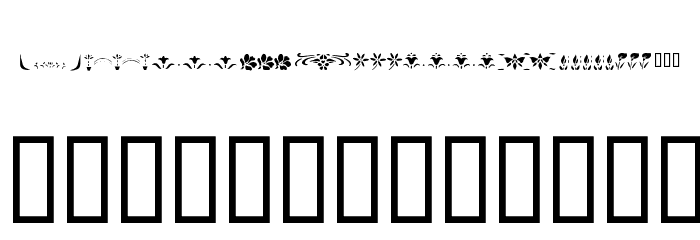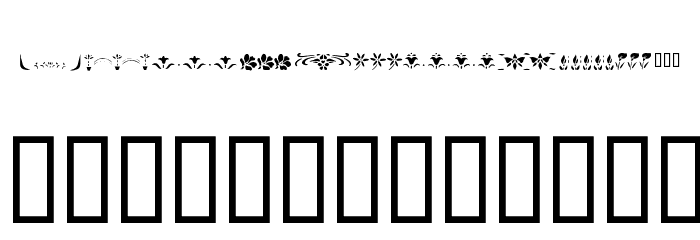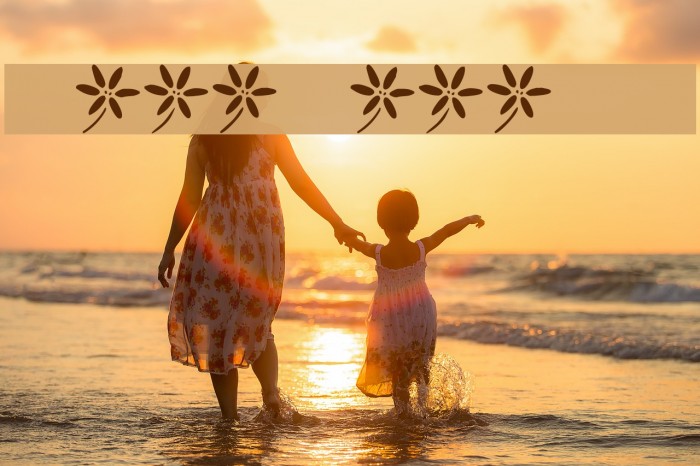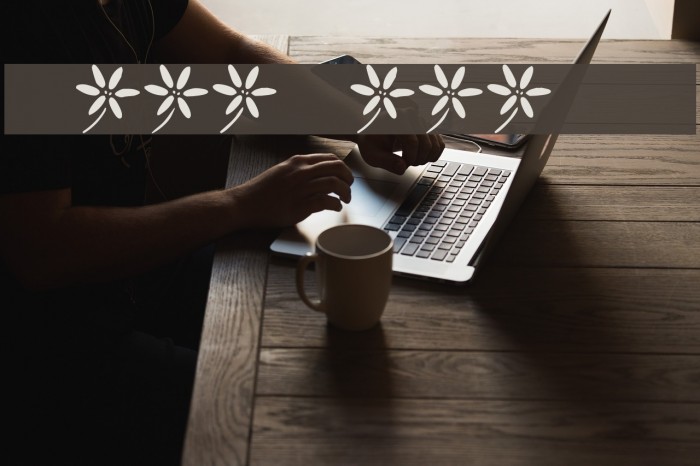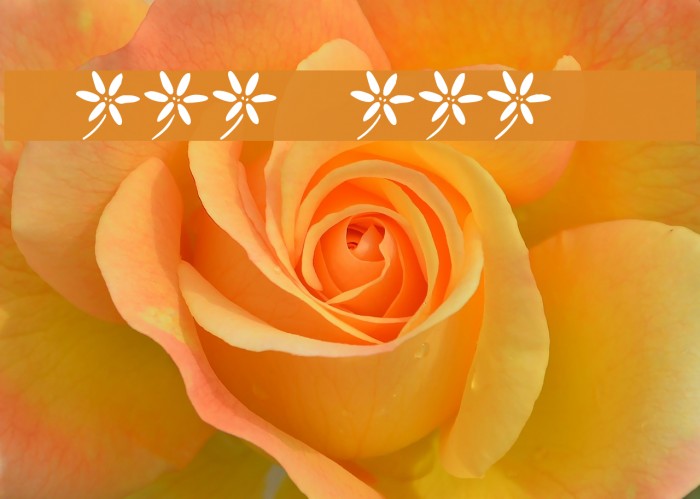
KR Fleur Flair Lines 2 Font
This is a decorative font featuring intricate floral and ornamental line designs. Each character is represented by a unique flourish or motif, making it ideal for embellishing projects that require a touch of elegance and sophistication. The designs are detailed and varied, ranging from simple floral patterns to more complex arrangements. This font is perfect for creating borders, dividers, or decorative elements in graphic design projects. Its ornamental nature makes it unsuitable for body text but excellent for decorative purposes.
A decorative font with intricate floral and ornamental designs.
- Proposed Projects: Ideal for wedding invitations, greeting cards, decorative borders, and artistic projects requiring elegant embellishments.
- Use Case: Logos, Decorative elements